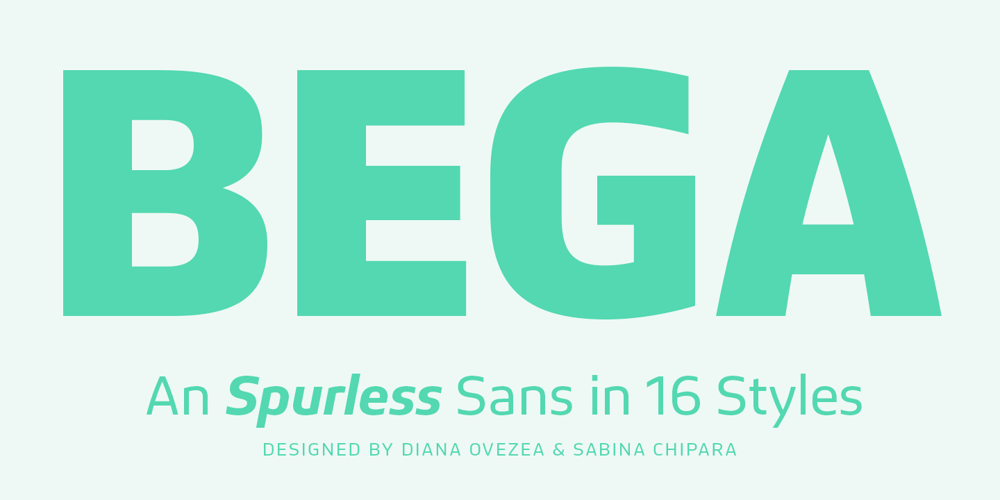
Bega Font Family was designed by Sabina Chipară, Diana Ovezea and published by Indian Type Foundry. Bega contains 16 styles and family package options. Bega is a simplified sans serif typeface. Formal reduction plays a strong role in its design. This is most visible in its ‘spurlessness.’ The visible strokes (or spurs) have been eliminated from the letterforms that would typically feature them. The lack of spurs in Bega is most-clearly visible when you look at the top-left corners of letters like ‘m’, ‘n’, and ‘r’. The Bega family includes eight weights, which range from Thin through Black. Each weight has two fonts on offer: An upright font, and an italic. Bega’s italics are obliques; their letterforms are slanted. The strokes of Bega’s letterforms all appear to be monolinear; that doesn’t mean that Bega is without contrast, however. Thanks to the family’s large number of weights – eight really is a lot – you can combine two or more of them with each other to create headlines that exhibit quite a bit of contrast! Each of Bega’s fonts includes a full range of numerators and denominators, to use when typesetting fractions, etc. The font’s numerals are proportional lining figures; these have the same height as Bega’s uppercase letters. The lowercase letters’ ascenders are tall, and they rise up above the tops of the capital letters and numerals. Bega’s friendly look makes it an ideal choice for use in corporate communication design. The typeface was designed by Sabina Chipară and Diana Ovezea.